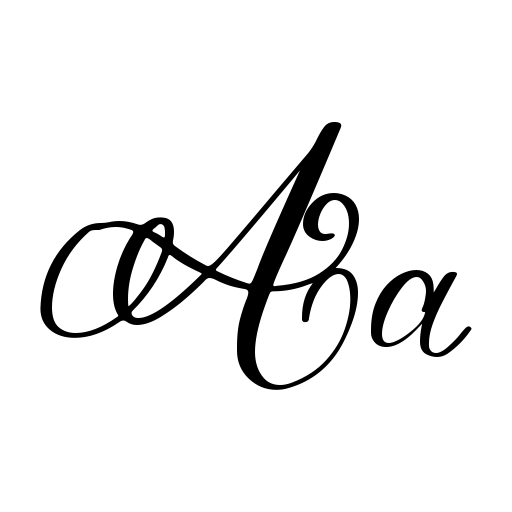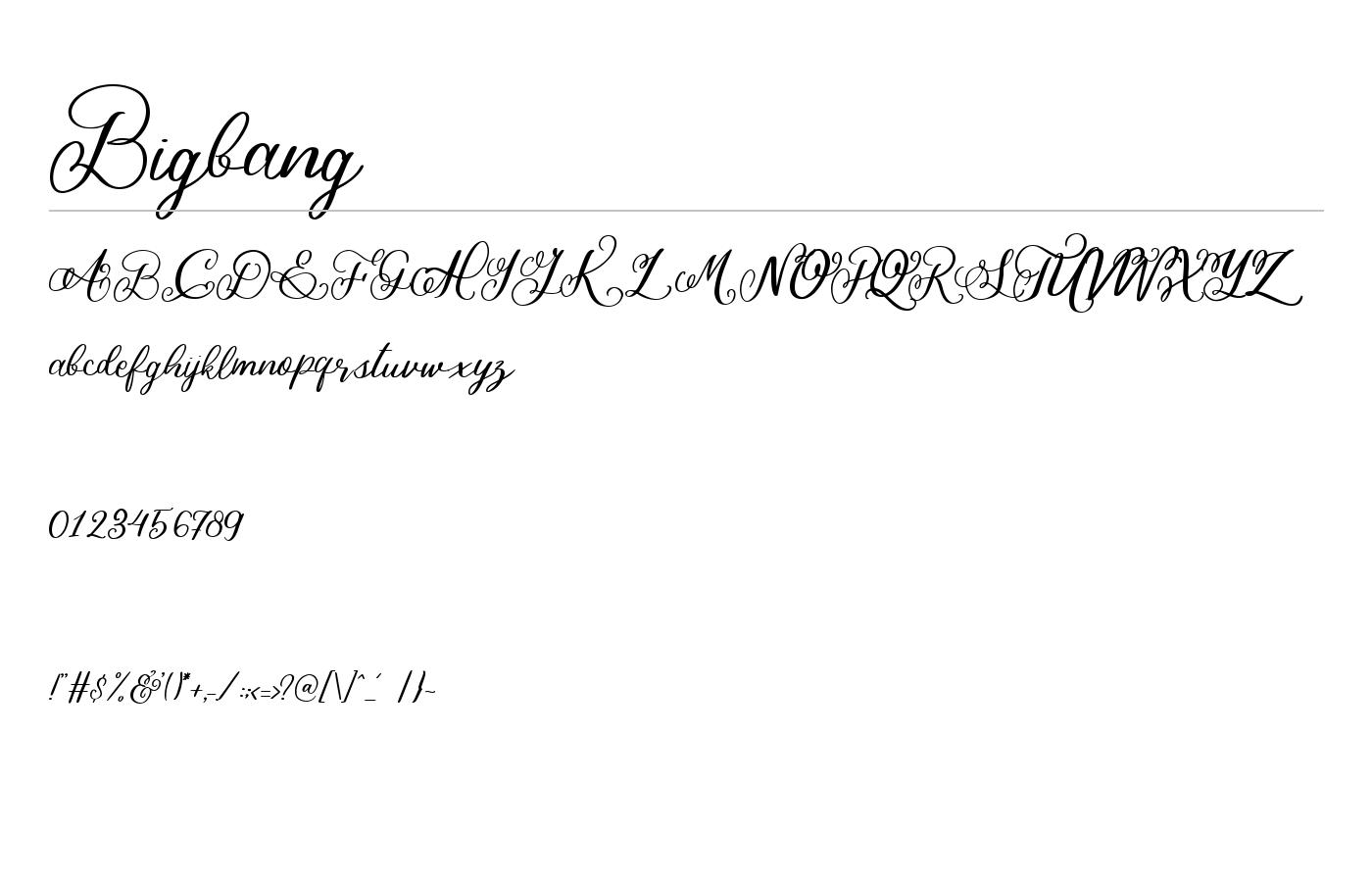
Bigbang is an elegant, cursive script font characterized by its flowing, intricate letterforms with high contrast between thick and thin strokes. Its delicate, calligraphic style with ornate uppercase letters and refined lowercase creates a sophisticated, graceful appearance, perfect for luxurious branding, invitations, and feminine design projects that seek a touch of classic charm and elegance.
Bigbang Font
About Bigbang Font
| Font family | Bigbang Font |
| Designer | Dimas Prasetyo |
| Trademark | Dm Letter Studio Bandung - Indonesia |